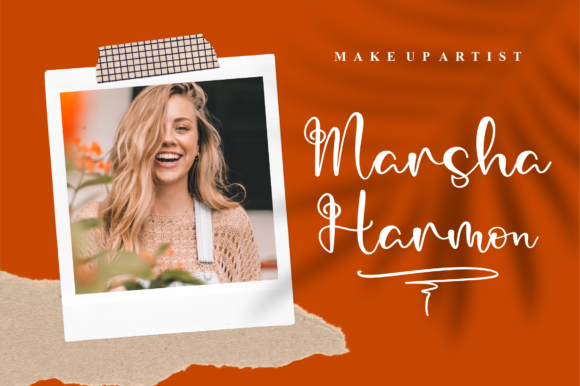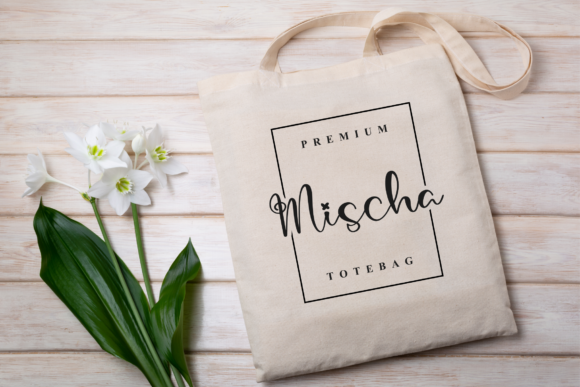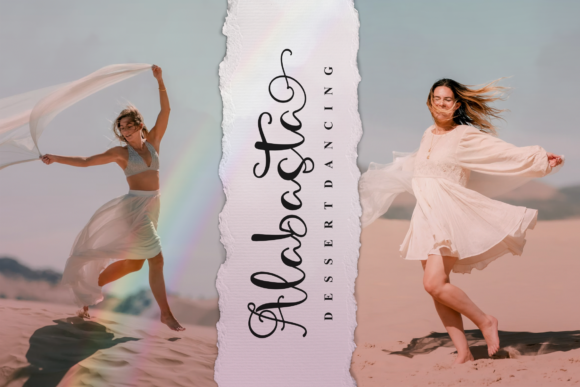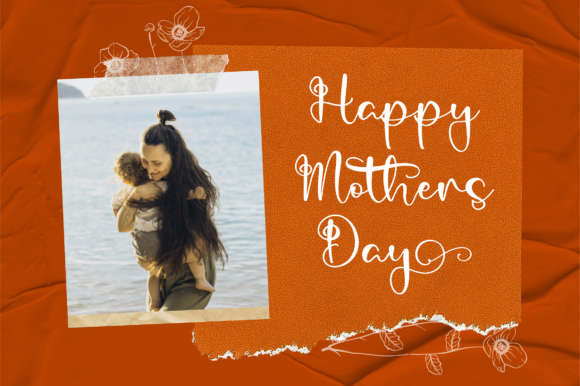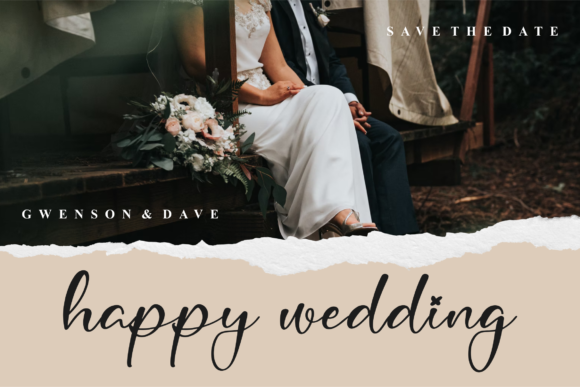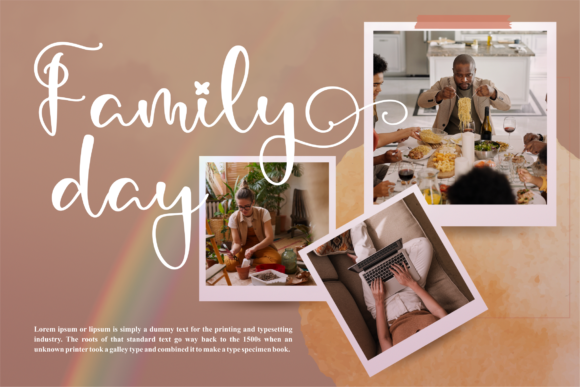
Introduction to Madiya Dalima Font
Madiya Dalima is a delicate and chic script font.
It is PUA encoded which means you can access all of the glyphs and swashes with ease Add it confidently to your projects, and you will love the results.
Madiya Dalima Font offers exceptional quality and versatility, making it a valuable addition to your design toolkit. Whether you’re creating for personal projects or commercial use, Madiya Dalima Font delivers professional results.